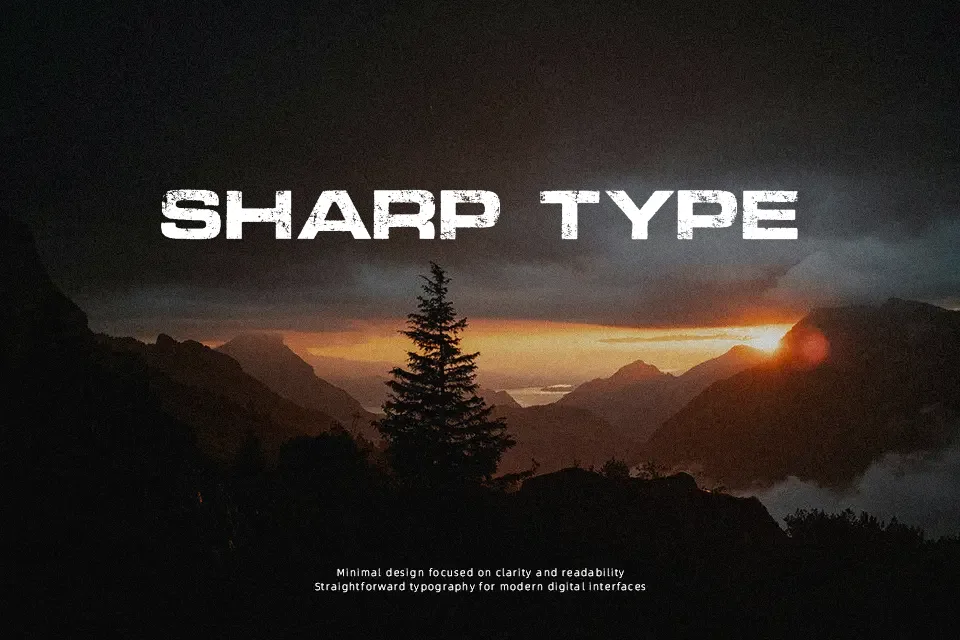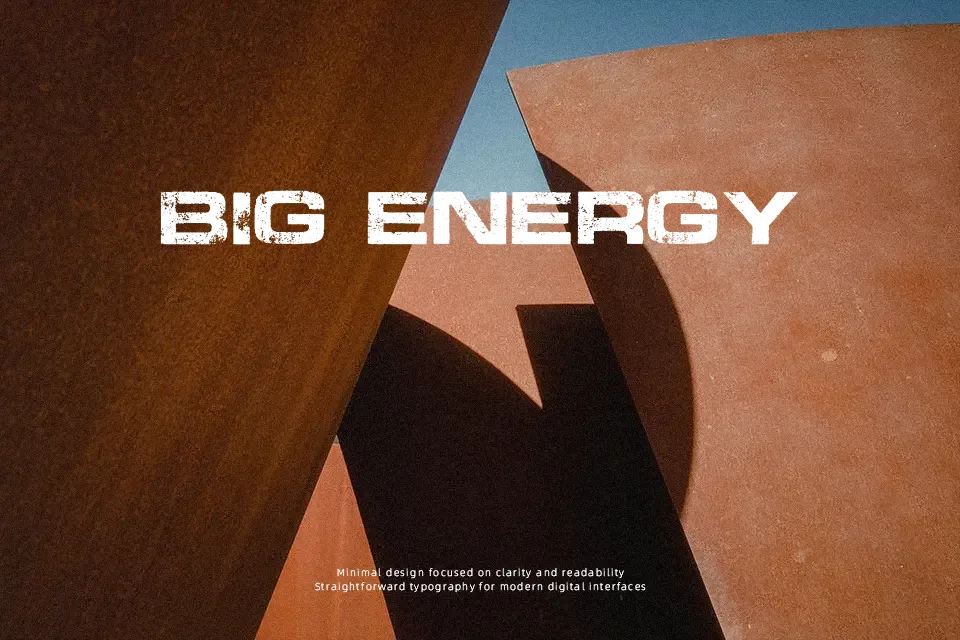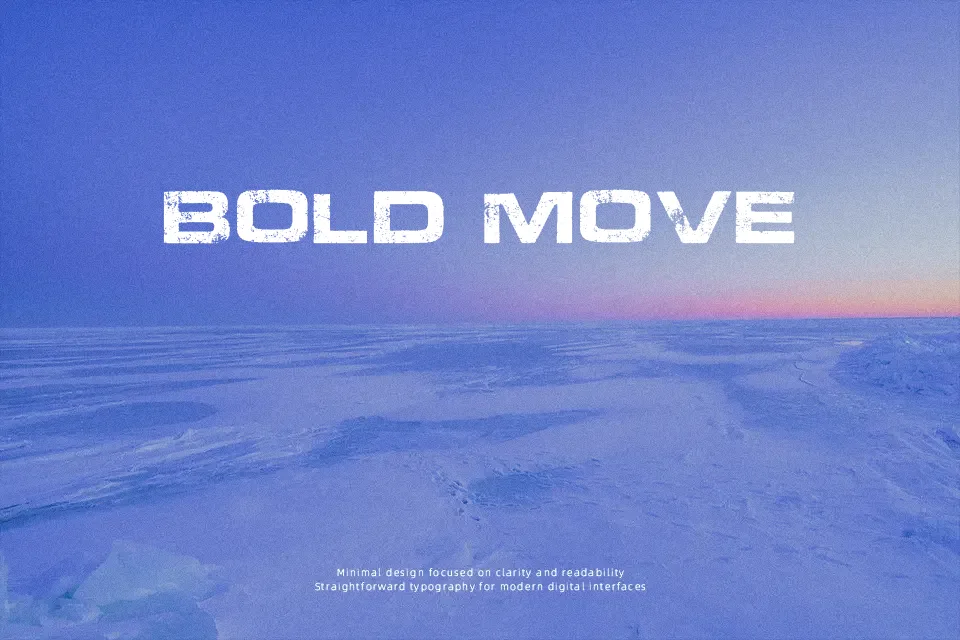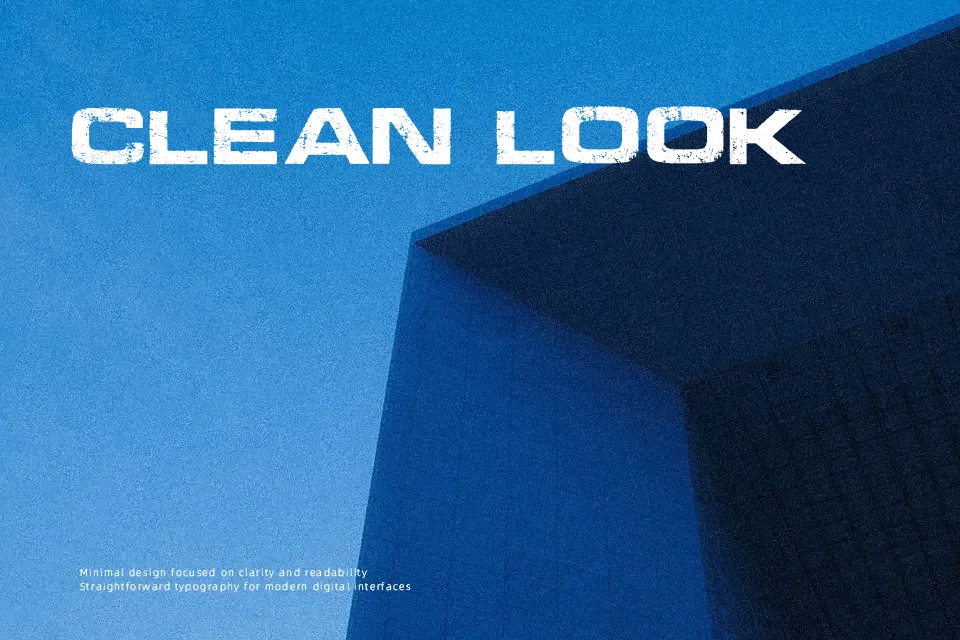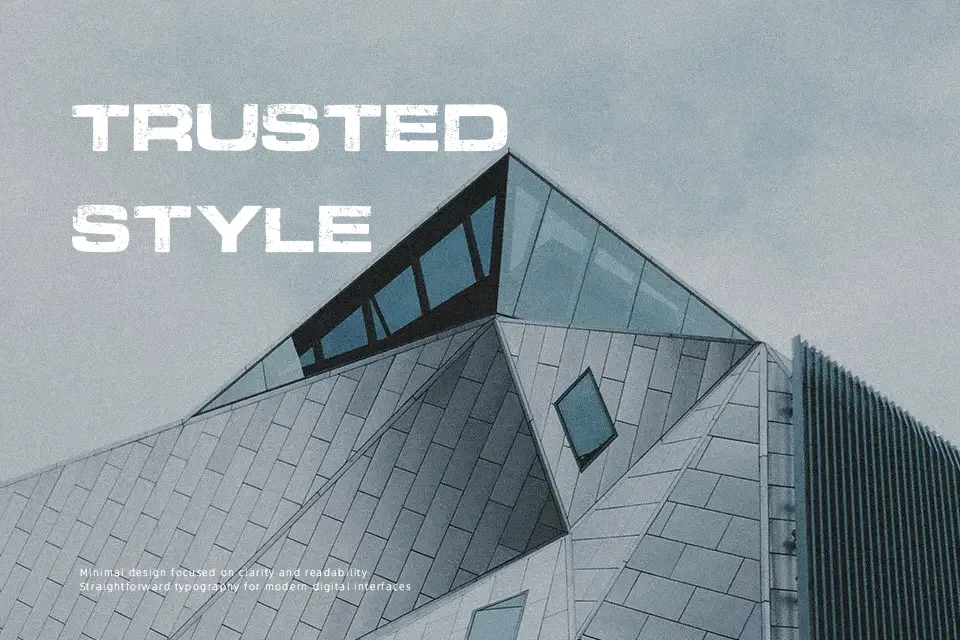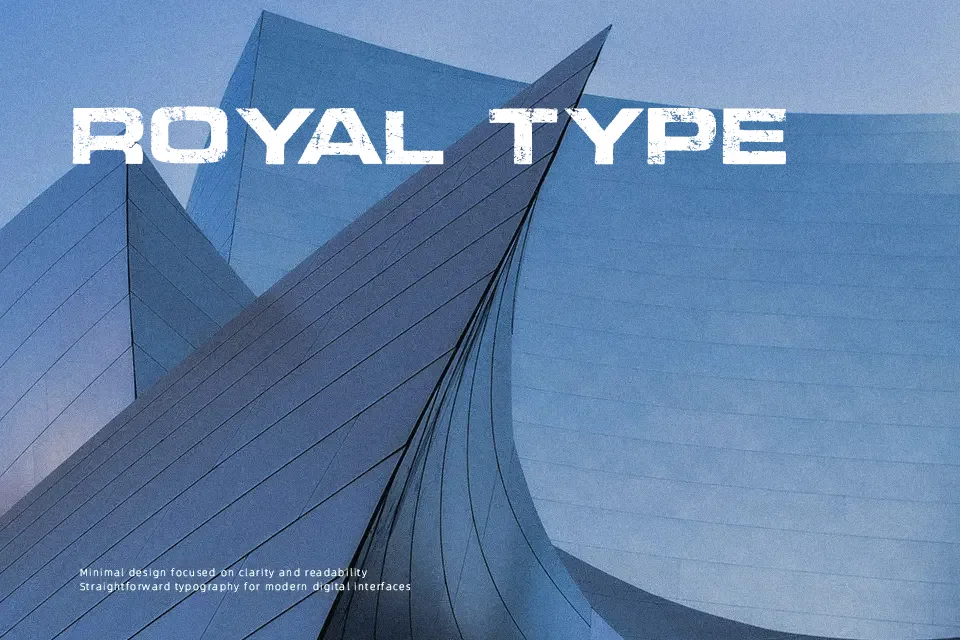
Progress Font
Progress Font presents a striking eroded structure that immediately commands attention with its aggressively textured strokes and distressed detailing. The bold proportions and dense letterforms give it a heavily weathered aesthetic, while the tight spacing enhances its solid, block-like rhythm in display contexts. Its rough, grunge-inspired characteristics make it particularly effective for extreme sports apparel and dramatic film titles. However, the complex internal distressing significantly compromises legibility in smaller point sizes, making it entirely unsuitable for continuous reading. The heavy texturing requires careful handling in dense layouts to avoid visual clutter, though the rugged letterforms perform exceptionally well when applied to massive standalone poster headlines.
extreme sports apparel, music festival posters, dramatic film titles, edgy streetwear branding
long paragraph text, corporate reports, small interface labels, dense editorial layouts
Perfect for headline, music, and poster, with a bold and decorative style.